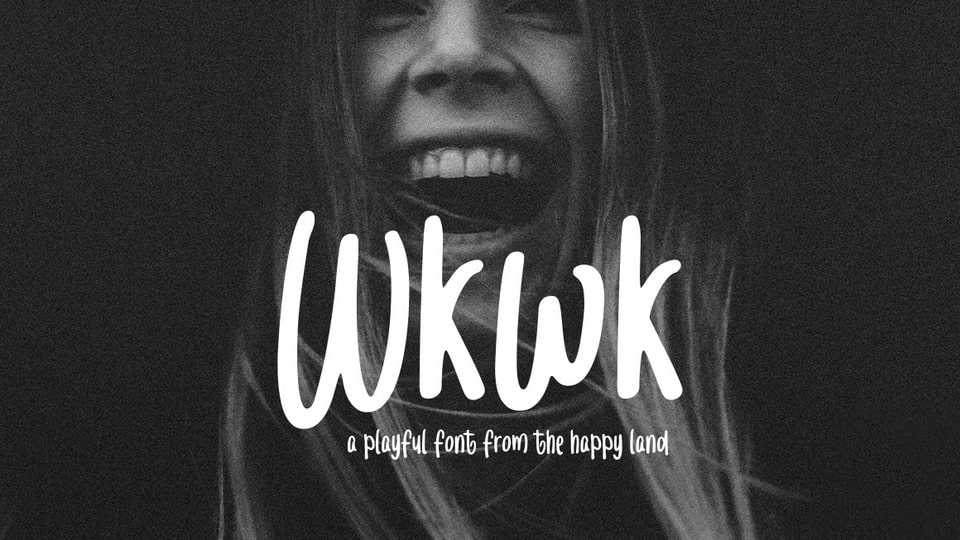
Download Wkwk font, a playful and captivating handwritten typeface inspired by the dynamic strokes of a brush. Wkwk font is the ideal choice for adding a touch of lively creativity to your designs.